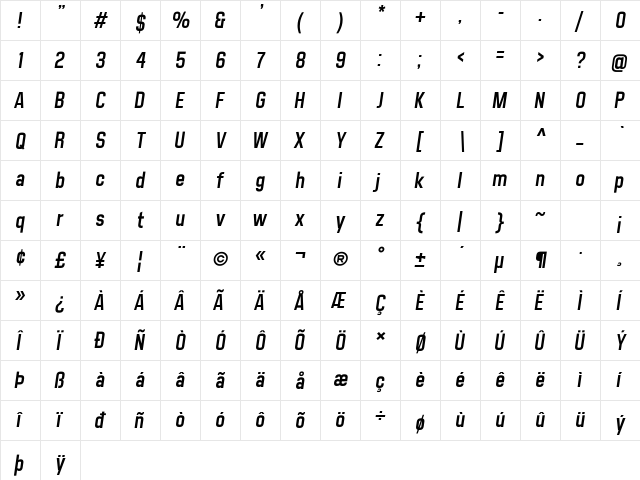
Matthan Sans Italic
| Designer | Jayvee D. Enaguas (Grand Chaos) |
Design Context for Matthan Sans Typeface
Matthan Sans takes a measured approach to typography — its balanced proportions and neutral character make it a reliable workhorse for both digital and print work. Its italic angle brings a sense of urgency and motion to the letterforms.
Pro Tip: Use Matthan Sans for emphasis, pull quotes, and subheadings where its slanted energy can add rhythm to the layout.